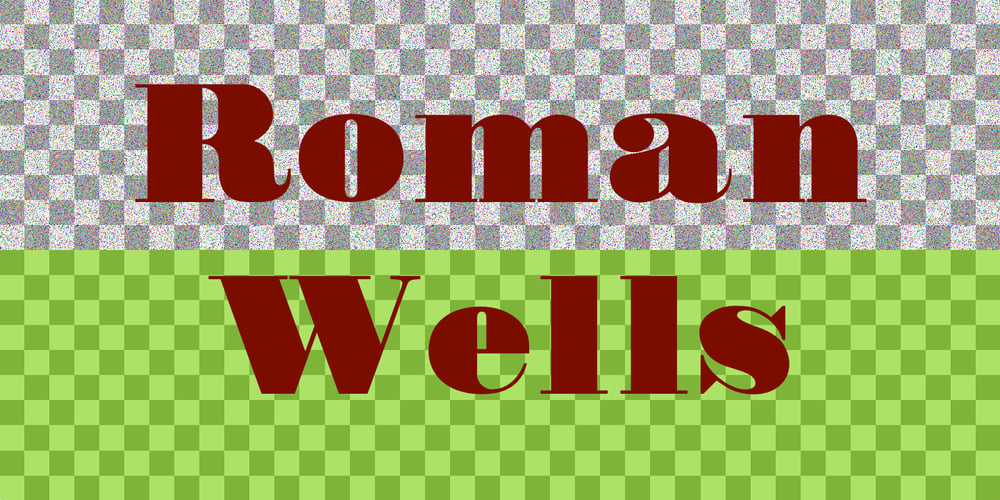
Roman Wells Font Family was designed by Jordan Davies and published by Wooden Type Fonts. Roman Wells contains 1 styles and family package options. A revival of one of the popular wooden type fonts of the 19th century, suitable for display, heavy stems, very thin serifs, short descenders. Heavily revised, very much improved, extensive kerning. Now in otf and ttf formats.